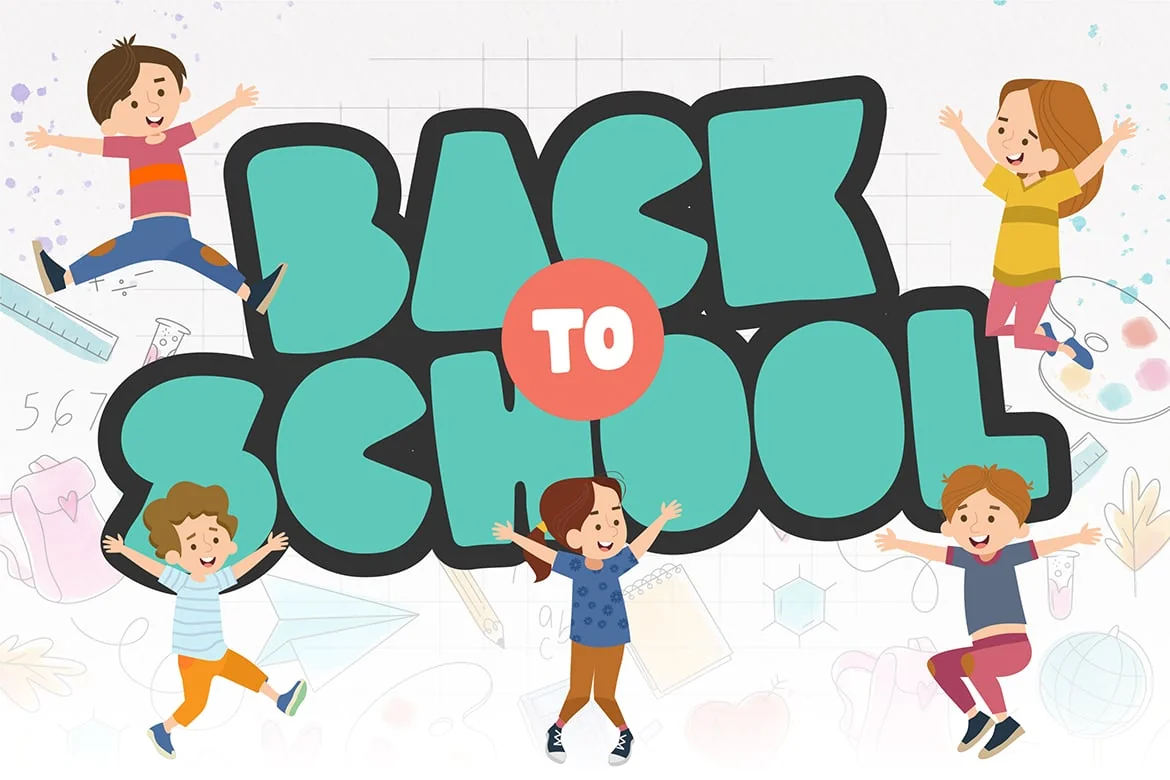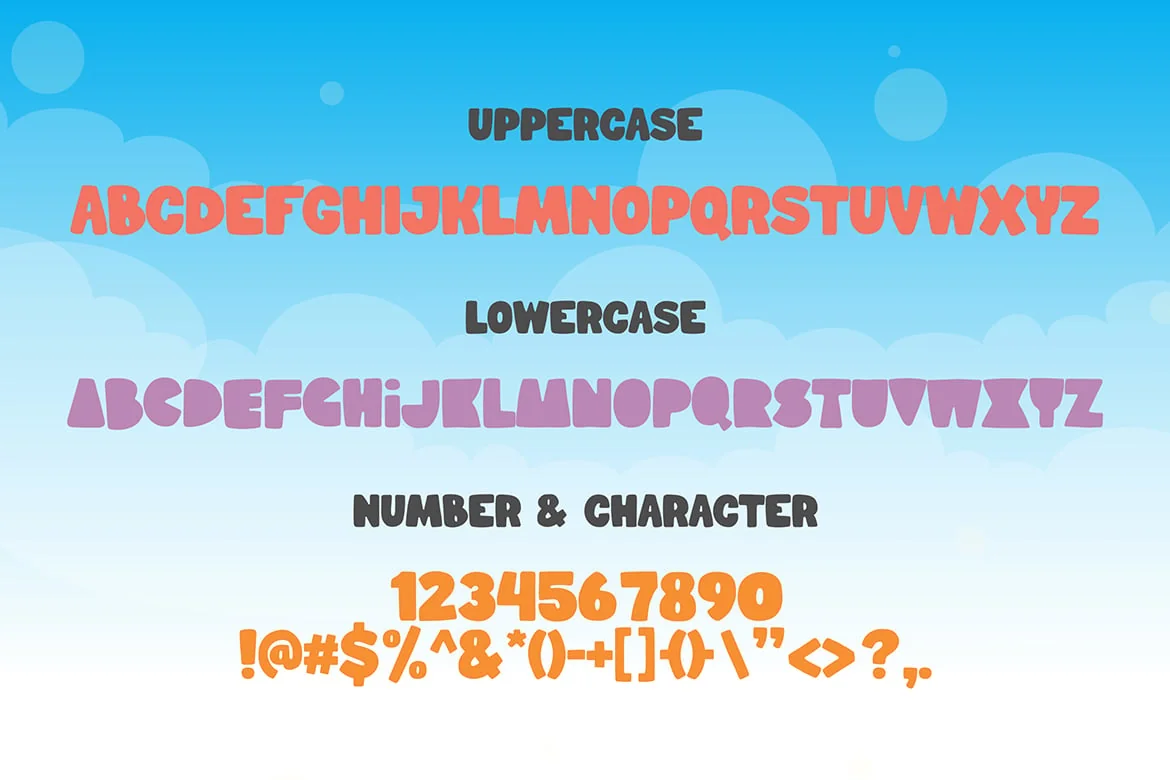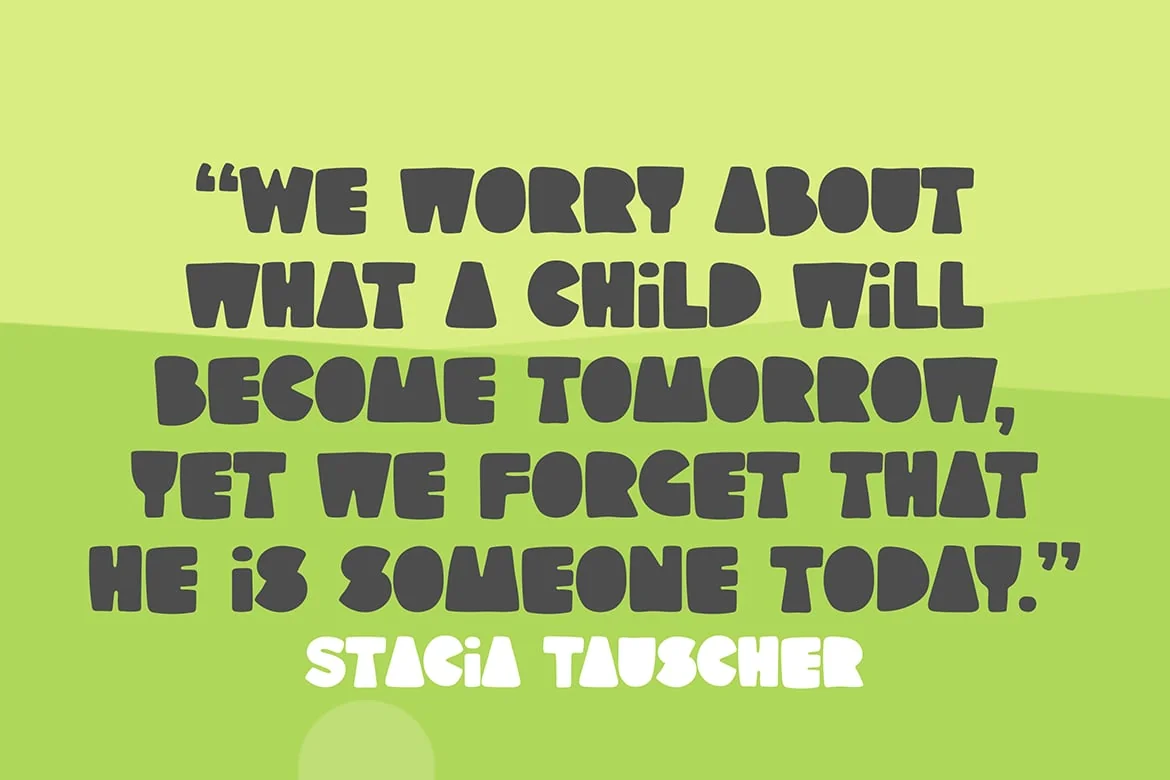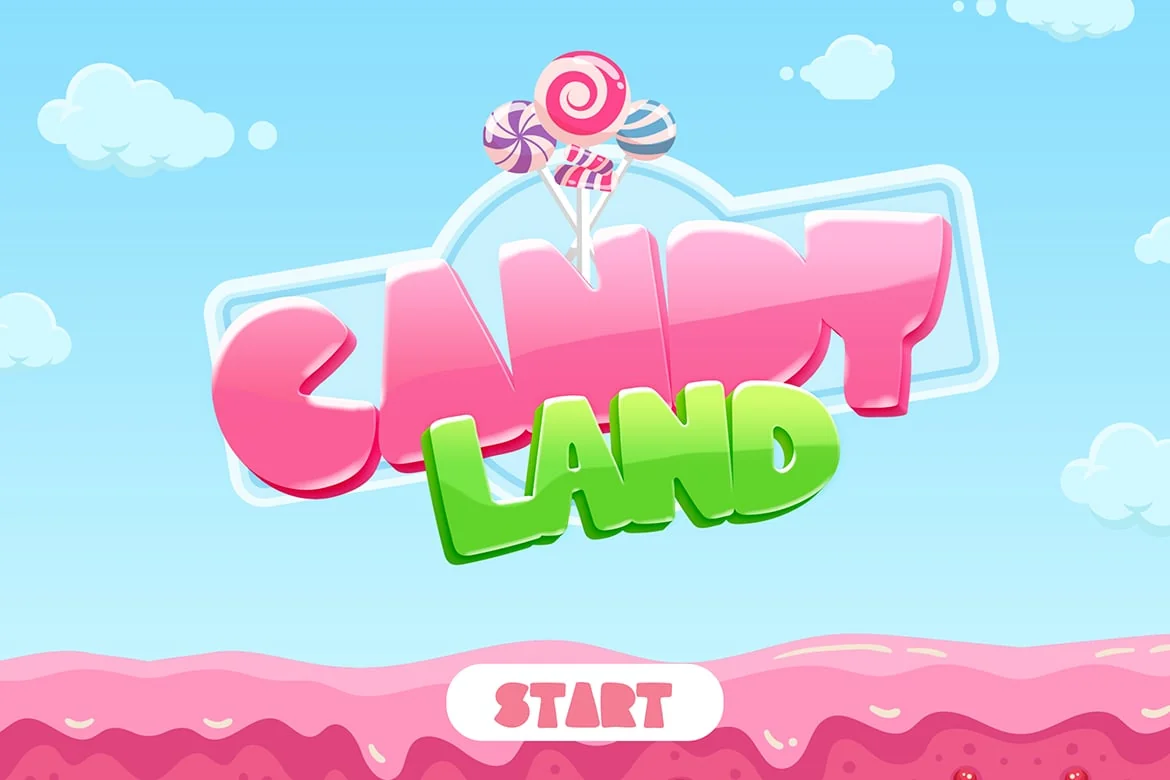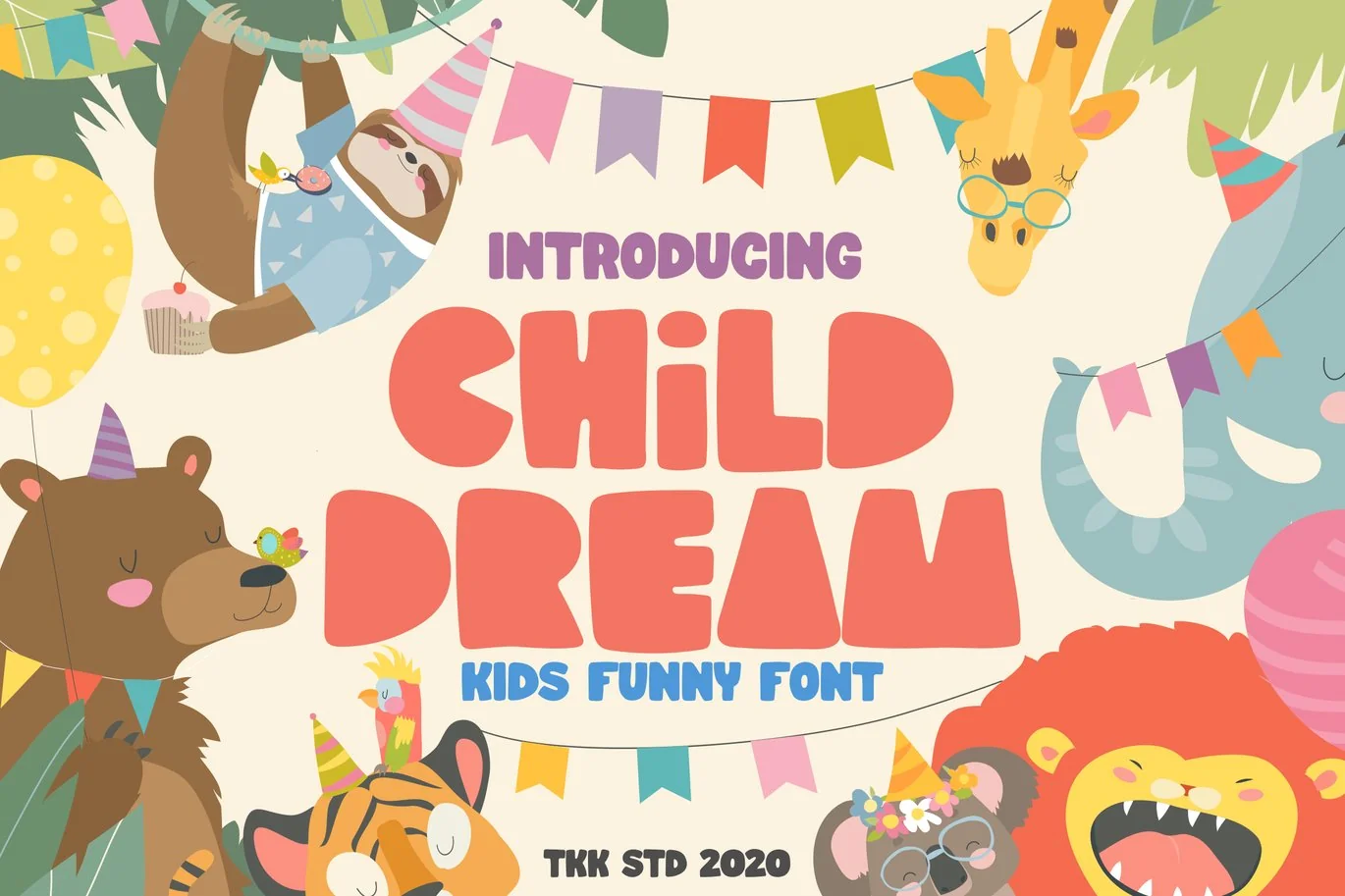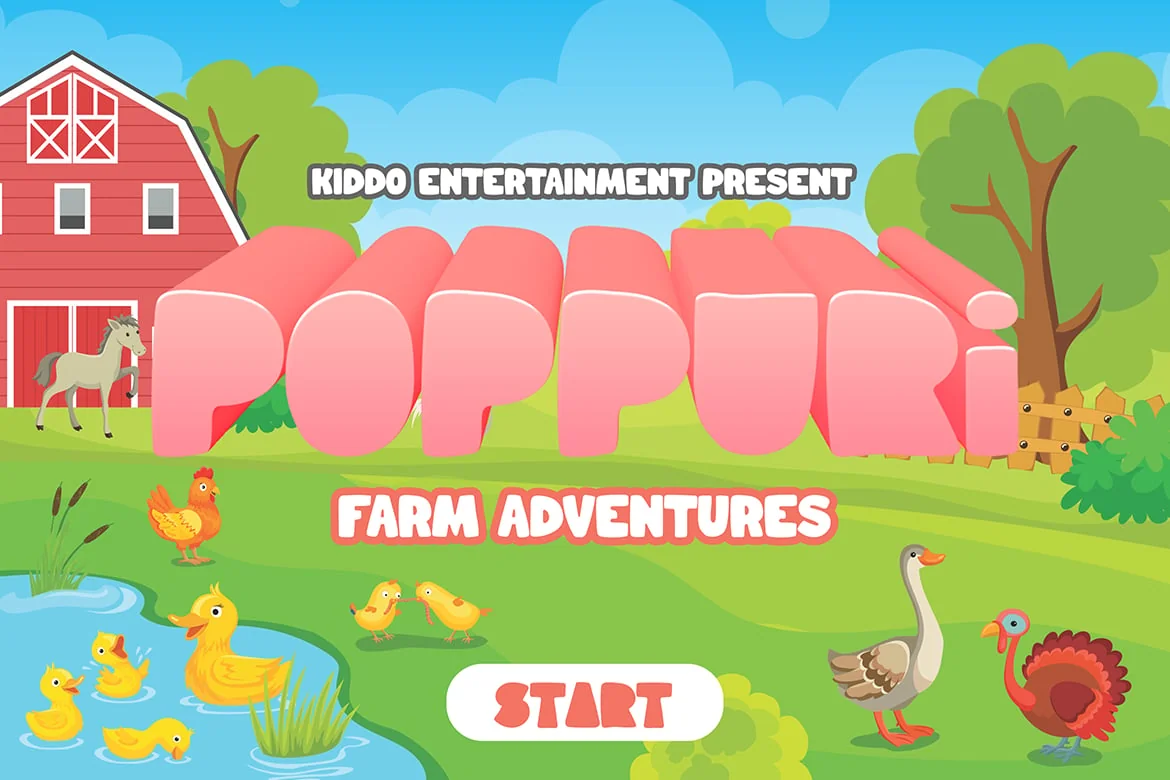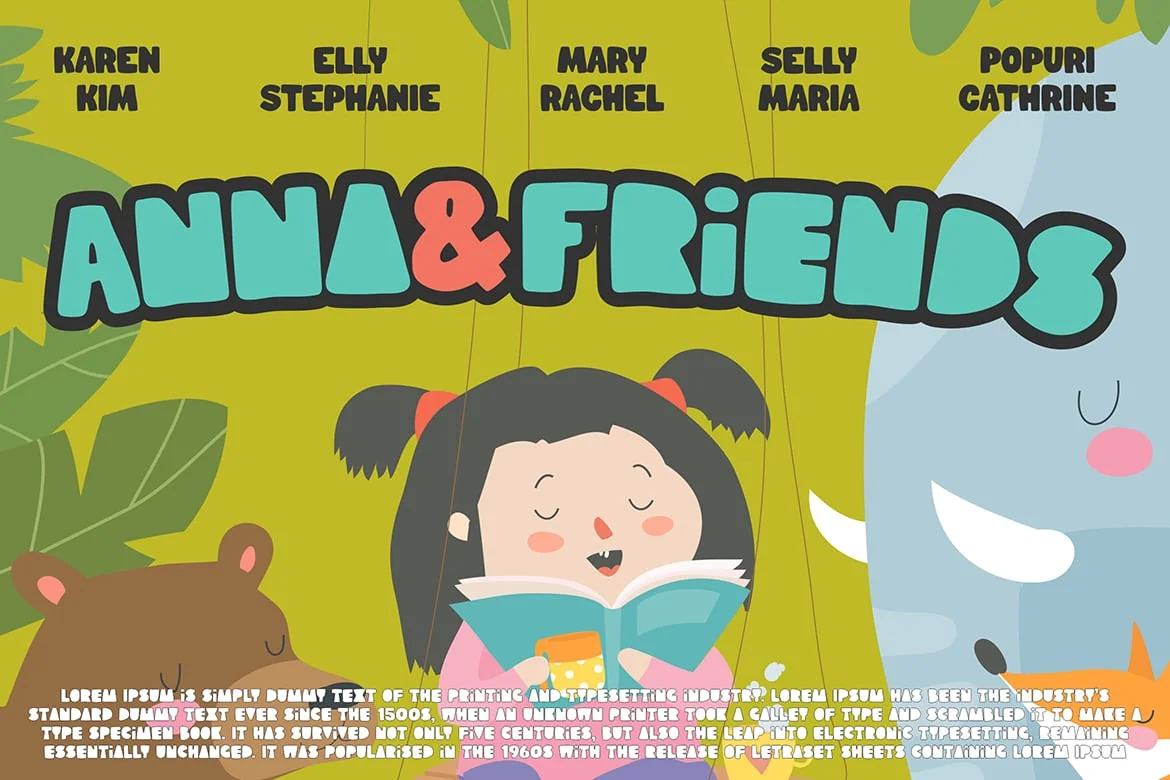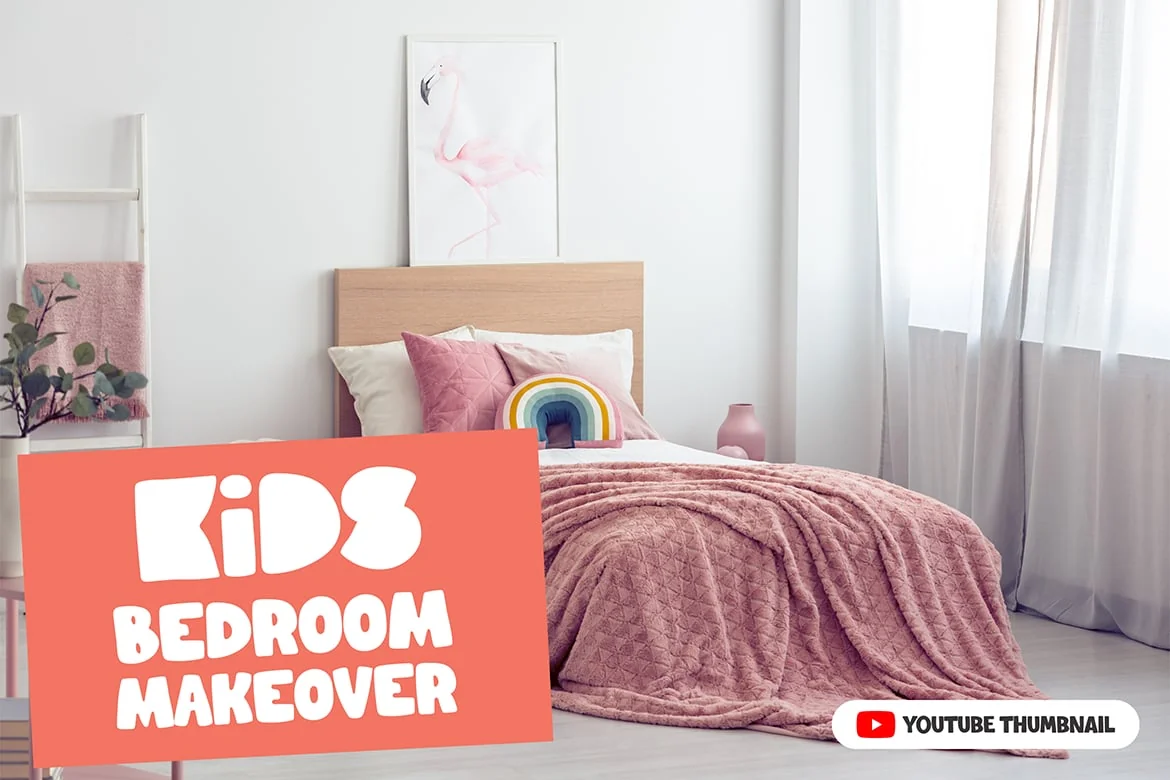
Kids Block Font – Child Dream
CHILD DREAM – A Fun & Imaginative Typeface for Kids’ Designs
CHILD DREAM is a lively and playful display font designed to spark joy, creativity, and adventure in every design. With its bouncy letterforms, soft curves, and hand-drawn charm, this font brings the magic of childhood imagination to life, making it perfect for kids’ books, school projects, toy packaging, and playful branding.
Inspired by storybook illustrations, cartoon lettering, and cheerful handwriting, CHILD DREAM is ideal for educational materials, daycare branding, birthday invitations, and fun-themed marketing. Whether you’re designing a children’s YouTube channel logo, a colorful poster, or engaging learning materials, this font adds excitement and warmth to any project.
Why Choose CHILD DREAM?
- Fun & Bouncy Letterforms – Creates an exciting and engaging visual experience.
- Perfect for Kids & Education – Ideal for storybooks, school materials, and classroom posters.
- Playful & Friendly Aesthetic – A cheerful style that keeps children engaged.
- Versatile for Print & Digital – Works beautifully for packaging, signage, and social media graphics.
- Easy to Read & Full of Character – A lively yet highly legible font for young audiences.
Let CHILD DREAM bring joy, creativity, and playful energy to your designs!